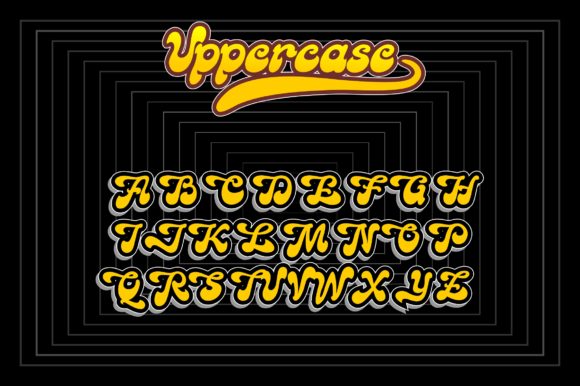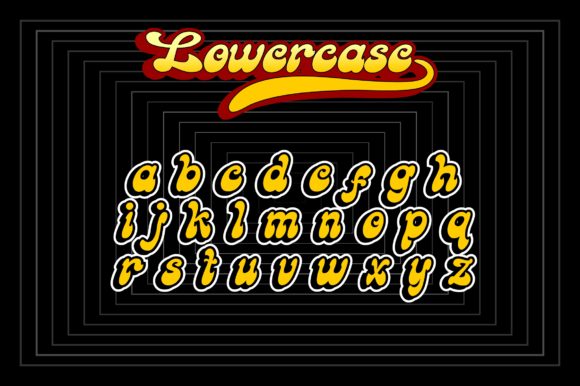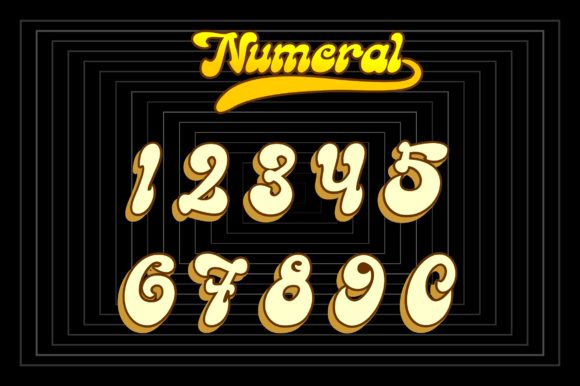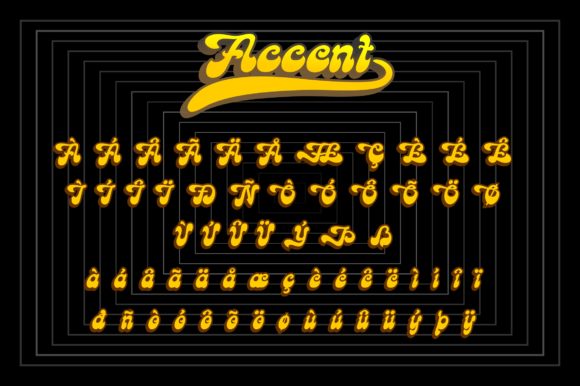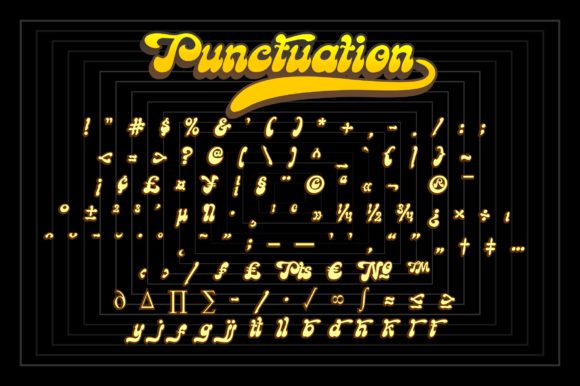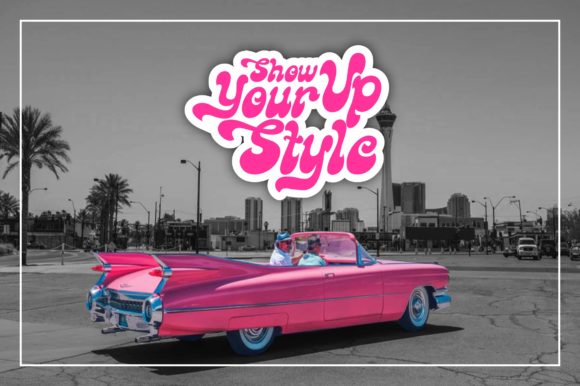
Introduction to Goodbees Font
Goodbees is a chunky lettered display font and delivers an incredible vintage aesthetic.
Use this font to add that special retro touch to any design idea you can think of .
Key Features of Goodbees Font